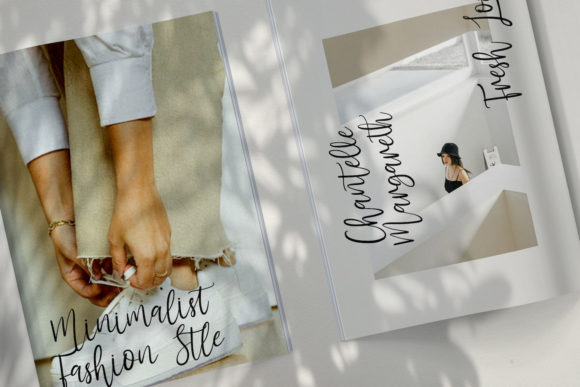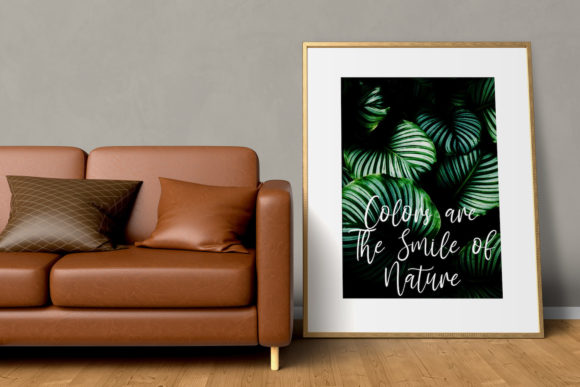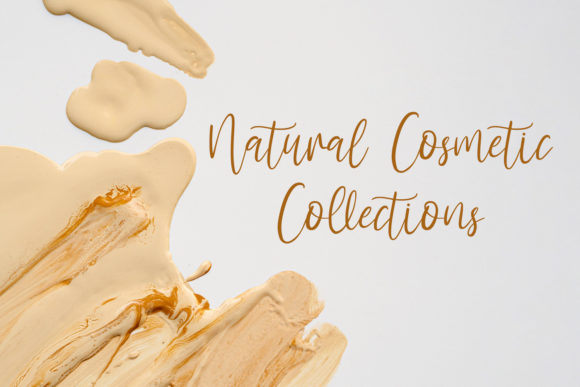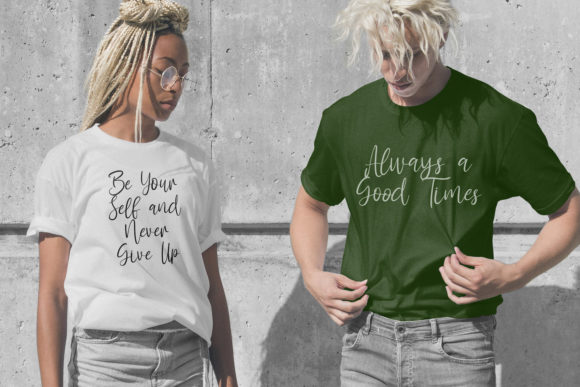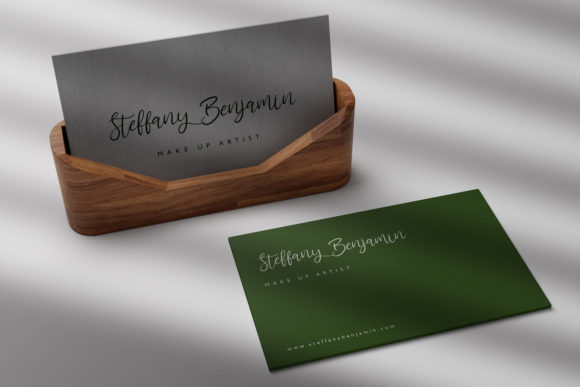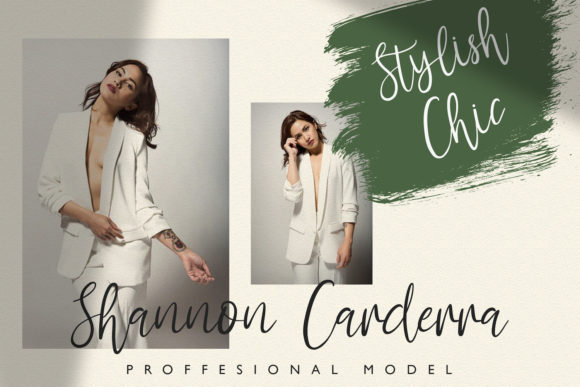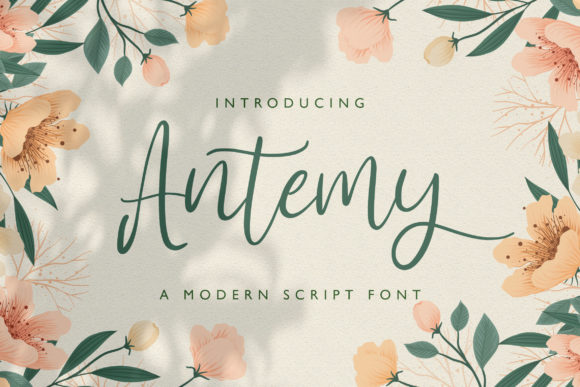
Discover the Elegance of Antemy Font: A Flowing Handwritten Script
Are you on the hunt for a font that exudes elegance and sophistication? Look no further than Antemy Font, a beautiful, flowing handwritten script that is sure to capture your heart. With its incredibly distinct and timeless style, Antemy is the perfect addition to your favorite design projects.
What Makes Antemy Font So Special?
Antemy Font is a stunning example of a handwritten font, described by its elegant touch. Its unique, flowing script is reminiscent of traditional calligraphy, yet it has a modern twist that makes it perfect for a wide range of design applications. Whether you’re a designer, crafter, or simply someone who appreciates beautiful typography, Antemy is sure to impress.
Key Features of Antemy Font
- Elegant and Sophisticated: Antemy Font boasts an incredibly distinct and timeless style that is sure to elevate your designs.
- Flowing Handwritten Script: With its smooth, connected letters, Antemy has a beautiful, flowing quality that is perfect for creating spectacular designs.
- Versatile: Antemy is a versatile font that can be used for a wide range of design applications, from logos and branding to invitations and crafts.
Antemy Font is a dream come true for designers and crafters who are looking for a beautiful, high-quality font to add to their collection. With its elegant and sophisticated style, Antemy is perfect for:
- Logo Design: Create stunning logos and branding materials with Antemy’s unique and memorable script.
- Invitations and Stationery: Add a touch of elegance to your invitations, cards, and other stationery with Antemy’s beautiful, flowing script.
- Crafts: Use Antemy to create beautiful, handmade crafts, such as journals, planners, and other paper crafts.
- Digital Design: Antemy is also perfect for digital design applications, such as social media graphics, blog headers, and more.
Why Choose Antemy Font?
With so many fonts on the market, why choose Antemy? Here are just a few reasons why Antemy Font stands out from the crowd:
- Unique and Memorable: Antemy’s elegant and sophisticated style is sure to make your designs stand out.
- High-Quality: Antemy Font is a high-quality font that is designed to deliver exceptional results.
- Versatile: Antemy can be used for a wide range of design applications, making it a great addition to any design collection.
If you’re looking for a beautiful, elegant font to add to your design collection, look no further than Antemy Font. With its incredibly distinct and timeless style, Antemy is sure to capture your heart and inspire your designs. Whether you’re a designer, crafter, or simply someone who appreciates beautiful typography, Antemy is a must-have font that is sure to deliver exceptional results.